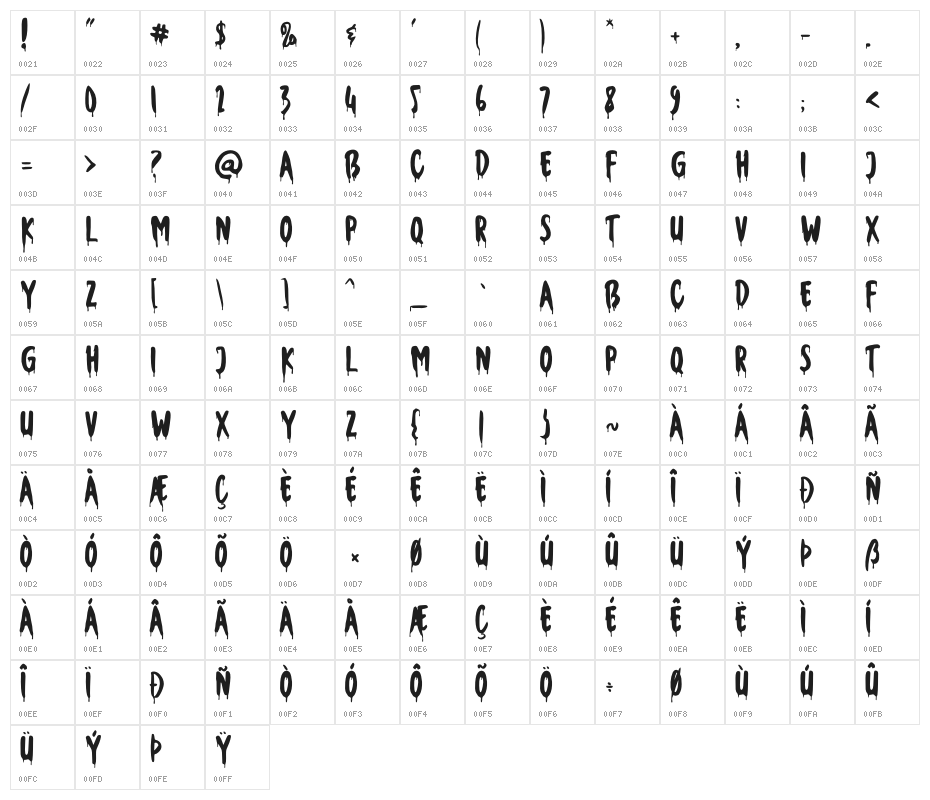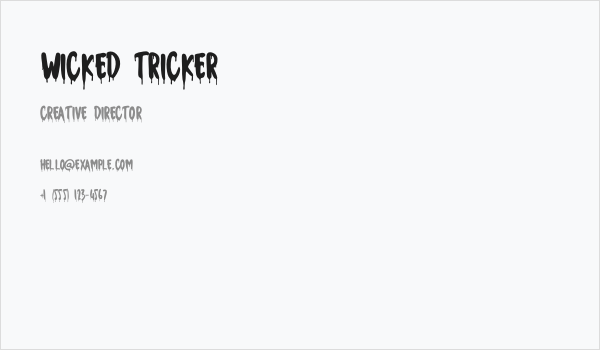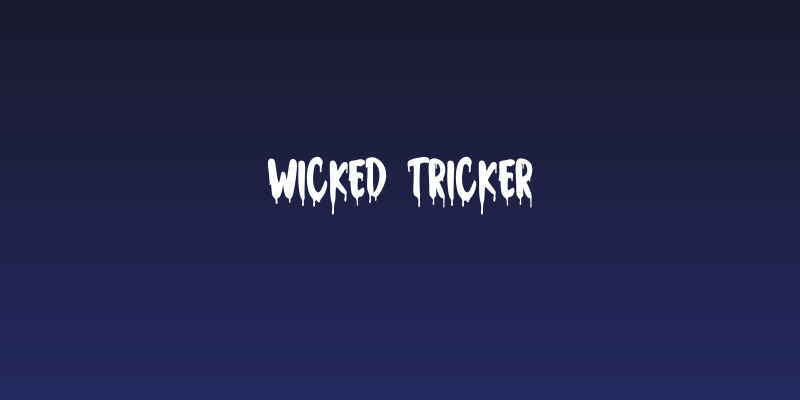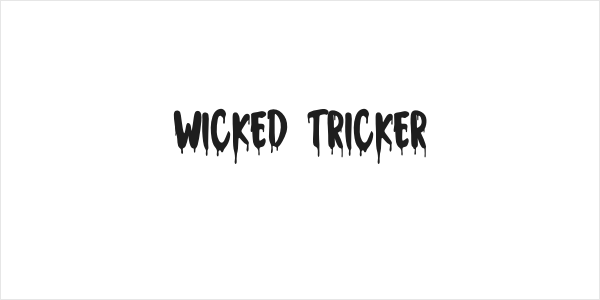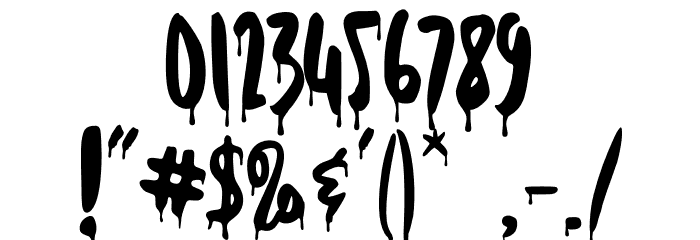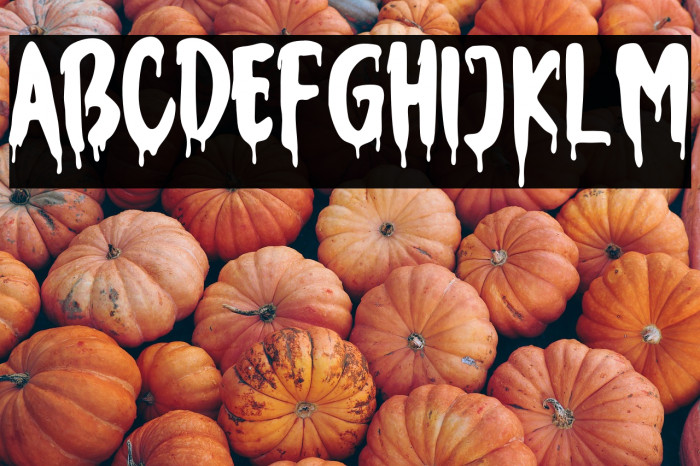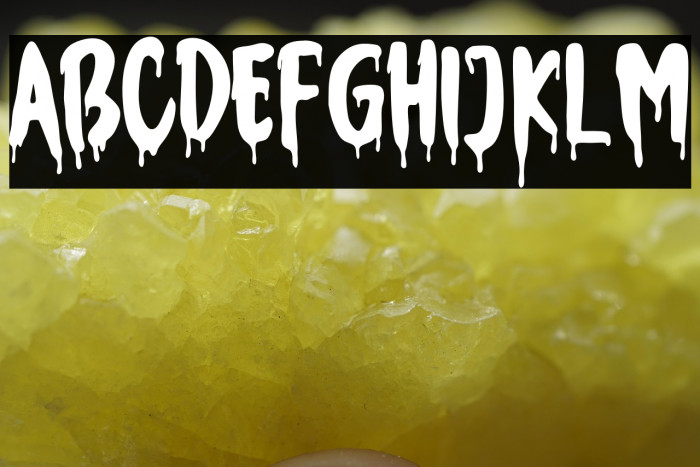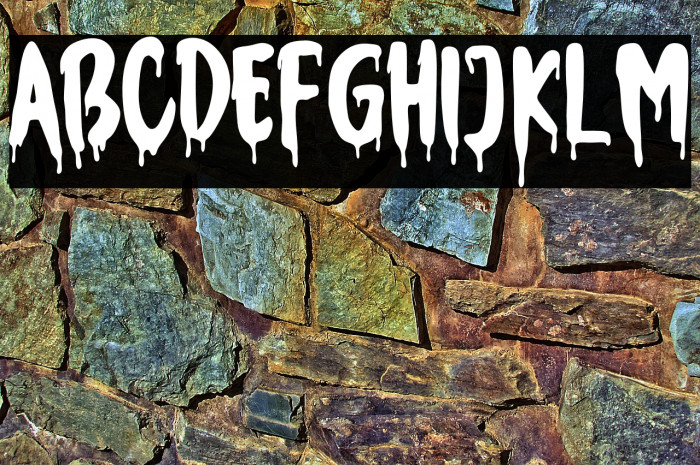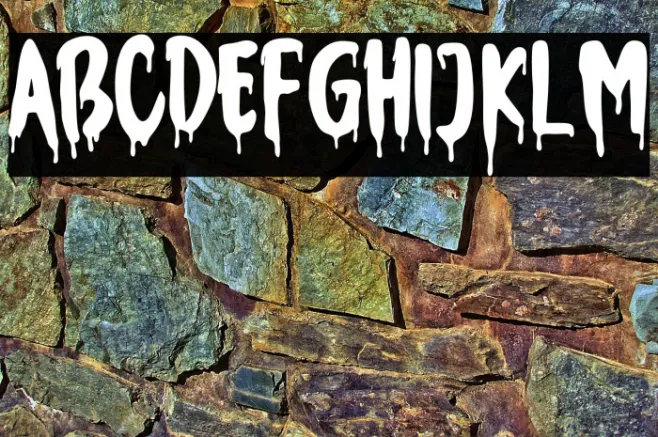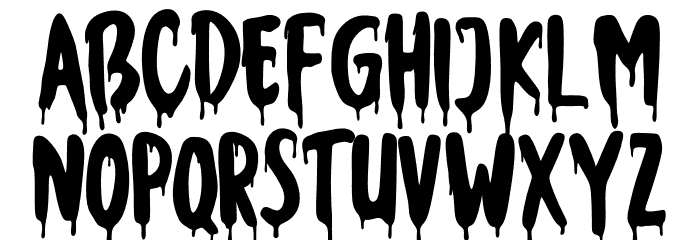
Wicked Tricker Font
Wicked Tricker Description
This font features a bold and dramatic style with a dripping effect that gives it a spooky, eerie appearance. The uppercase and lowercase letters are consistent in their fluid, melting design, creating a cohesive look across the alphabet. The numbers and special characters maintain this dripping motif, enhancing the overall theme. The font's unique style makes it ideal for Halloween-themed projects or any design requiring a sense of mystery and intrigue.